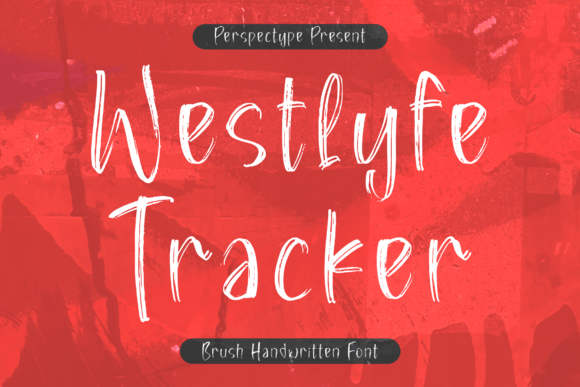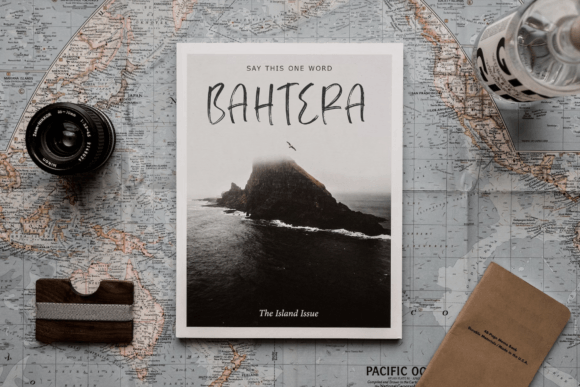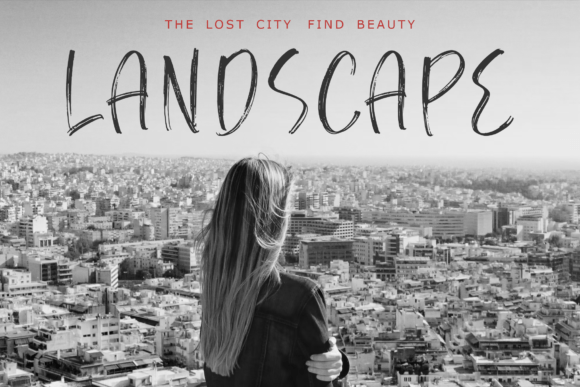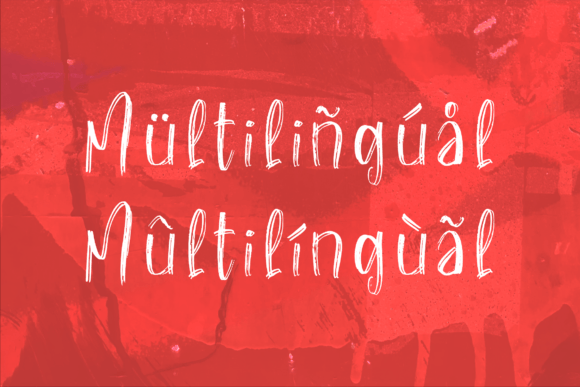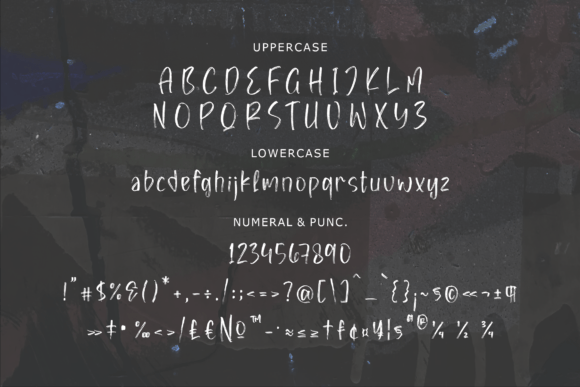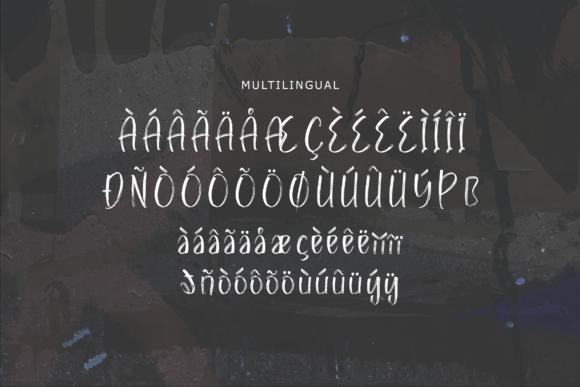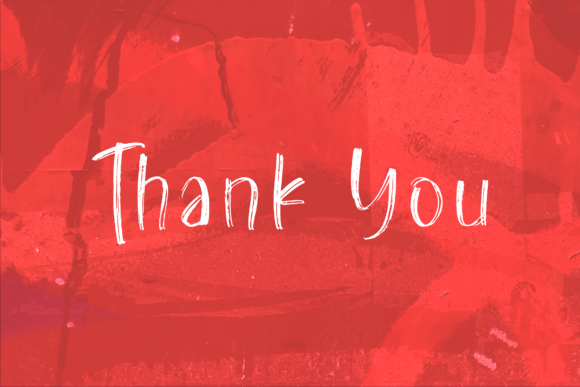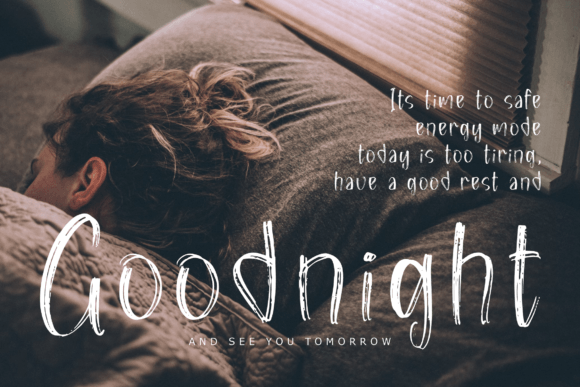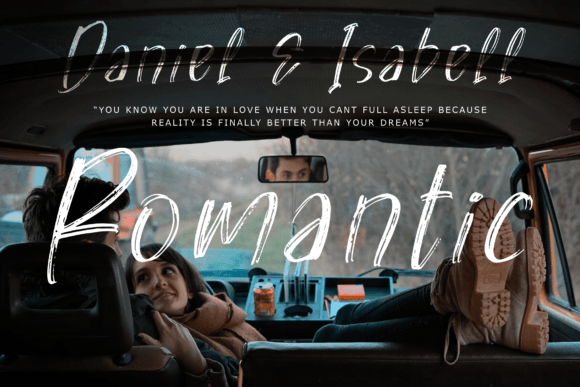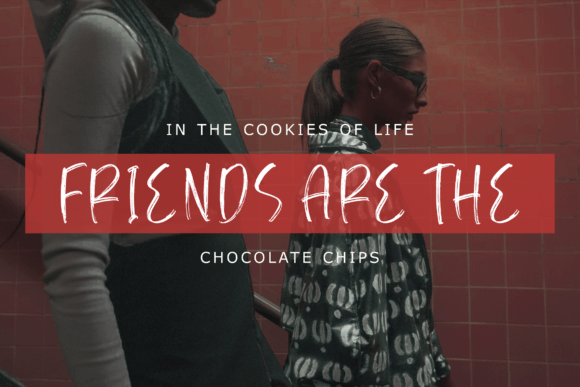
Westlyfe Tracker Font
About Westlyfe Tracker Font
Westlyfe Tracker Font is a stylish brush handwritten typeface designed to add a natural and artistic flair to your creative work. With its bold and expressive strokes, this font is perfect for a wide variety of projects including logos, branding, homeware designs, product packaging, mugs, quotes, posters, shopping bags, t-shirts, book covers, name cards, invitations, greeting cards, labels, photography, watermarks, special events, and more.
Bold and Artistic Brush Handwritten Design
Westlyfe Tracker features dynamic brush strokes that create a lively and authentic handwritten look. The font’s bold character and natural flow bring energy and personality to your designs, making them stand out with a modern, handcrafted vibe.
Ideal Uses for Westlyfe Tracker Font
This versatile font works wonderfully for:
• Logos and brand identities
• Product packaging and homeware designs
• Apparel and merchandise, including t-shirts and mugs
• Invitations, greeting cards, and event stationery
• Posters, quotes, and social media graphics
• Photography watermarks and branding
• Labels and promotional materials
Westlyfe Tracker adds charm and creativity to a wide range of design applications.
Why Choose Westlyfe Tracker Font?
Designers love Westlyfe Tracker for its:
• Stylish and expressive brush handwritten style
• Bold, natural, and flowing letterforms
• Versatility across print and digital platforms
These qualities make Westlyfe Tracker a practical and impactful font choice.
Add Energy and Authenticity to Your Designs
Typography shapes the mood of your project. Westlyfe Tracker injects energy, authenticity, and style, helping your designs connect with audiences through a handcrafted look. Whether for branding, marketing, or personal projects, this font elevates your creative expression.
In summary, Westlyfe Tracker Font is a bold and stylish brush handwritten script perfect for designers seeking a natural and artistic font. Add Westlyfe Tracker to your font collection to create lively and memorable designs.